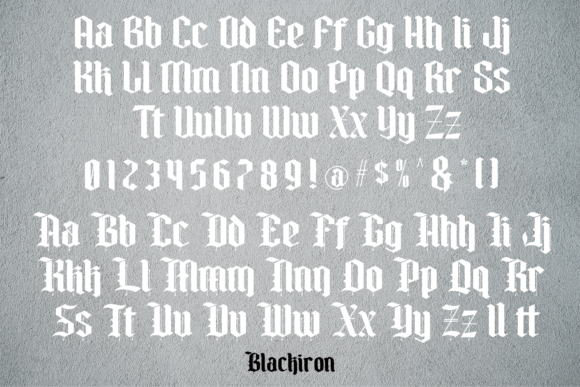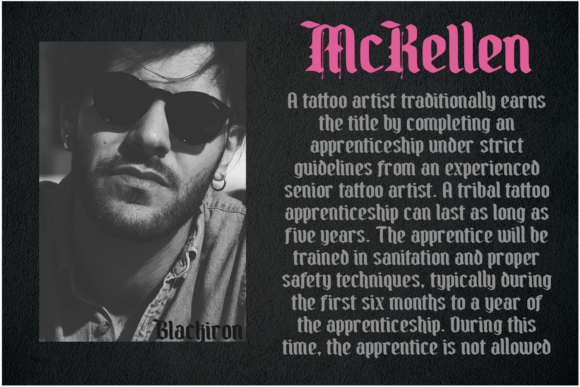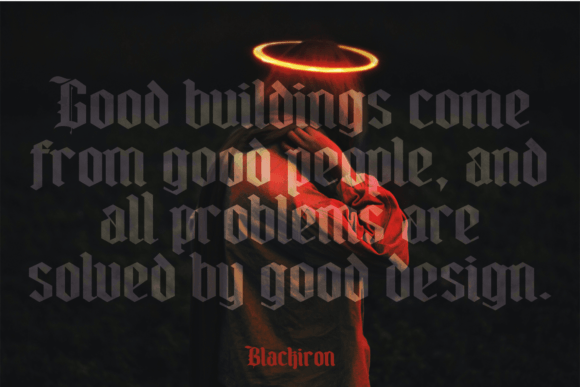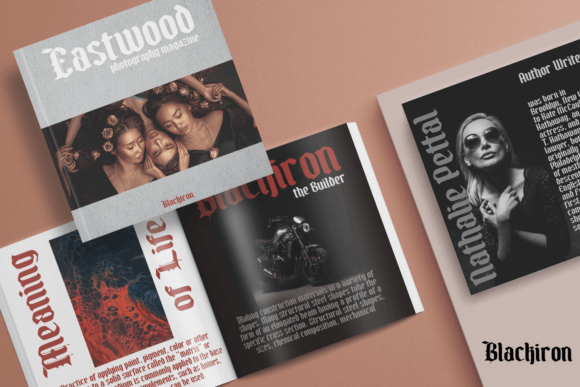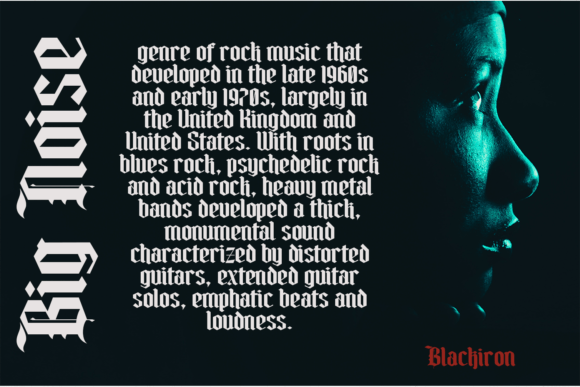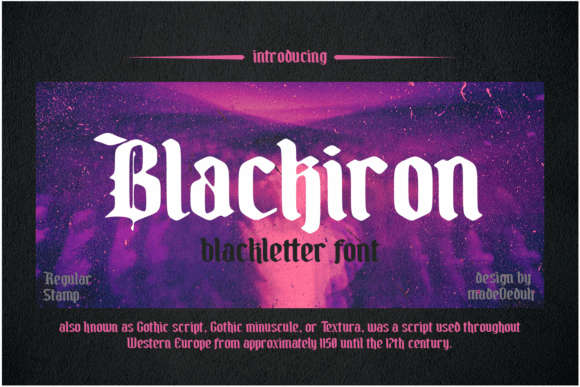
The Bold Statement Maker: Unleashing the Power of Blackiron Font
I’ll never forget the time I was working on a branding project for a craft beer company. My client wanted a label that would stand out on the shelves, something that screamed “bold” and “daring.” I scoured the internet for the perfect font, but nothing seemed quite right. That was until I stumbled upon Blackiron, a splendid blackletter font that would become the perfect fit for the project. In this article, I’ll share my experience with Blackiron, its features, and how to make the most of it in your designs.
An Honest Review of Blackiron Font
• ✨ Stylish features: Blackiron boasts an impressive range of stylish features that make it perfect for product packaging, branding, or any project that needs a bold statement.
• ✅ Bold and daring: This font is not for the faint of heart. It’s perfect for designers who want to make a statement and create a lasting impression.
• 🎨 Versatility: Blackiron can be used in a variety of contexts, from luxury brands to crafty, handmade products.
While Blackiron is an excellent font, there are a few things to keep in mind:
• 🤔 Legibility at small sizes: Like many blackletter fonts, Blackiron can be challenging to read at small sizes. Make sure to test it in your design to ensure it’s legible.
• ⚠️ Limited use cases: While Blackiron is versatile, it’s not suitable for every project. Use it sparingly to avoid overwhelming your design.
The Backstory of Blackiron Font
Blackiron was designed with one goal in mind: to create a bold, statement-making font that would leave a lasting impression. Inspired by traditional blackletter typography, the designer aimed to craft a font that would be both elegant and daring. The result is a font that’s perfect for designers who want to push the boundaries of their creativity.
Font Name Blackiron Font
Author madeDeduk
Q: Is Blackiron suitable for body text?
A: No, Blackiron is best used for headlines, titles, or short phrases. Its bold, blackletter design makes it challenging to read in large blocks of text.
Q: Does Blackiron support OpenType features?
A: Yes, Blackiron supports OpenType features, including glyphs and stylistic alternates. This allows you to customize your text and create unique designs.